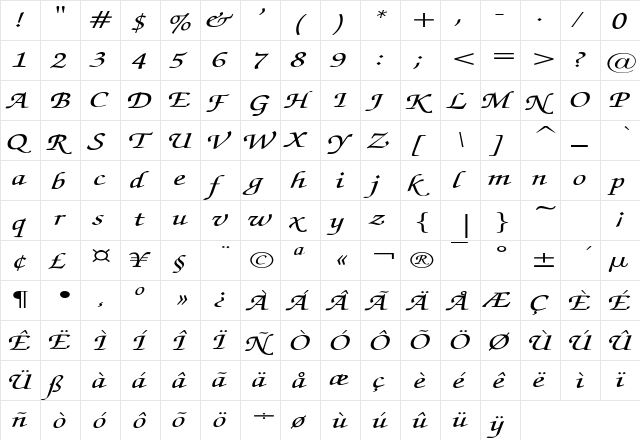
ExchequerScriptExtended Regular
Design Context for ExchequerScriptExtended Typeface
ExchequerScriptExtended brings a calligraphic fluidity to the page — its connecting strokes and expressive curves give it an unmistakably human quality.
Font Pairing: Combine ExchequerScriptExtended with a simple geometric sans for maximum contrast — the tension between flowing curves and clean structure is a classic typographic pairing.
Pro Tip: Use ExchequerScriptExtended for short runs of text — names, titles, or taglines. Extended body copy in script faces tires the eye quickly.